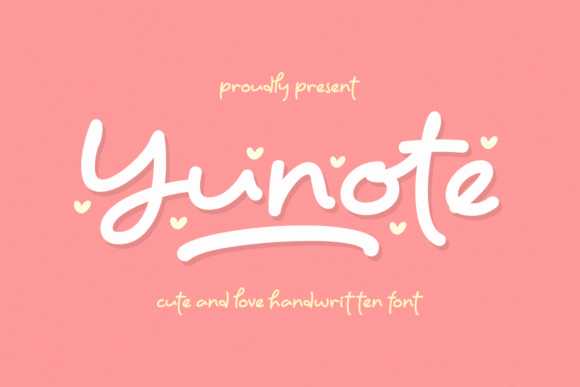
Step into the realm of elegant charm with Yunote Font, the captivating script font that will leave you enchanted. This delicately crafted handwritten font is a true masterpiece, possessing a gentle flow and enchanting curves that bring a touch of romance to any design.
Indulge in the versatility of Yunote Font, perfectly suited for a myriad of creative endeavors. Whether you're designing captivating logos, crafting heartfelt greeting cards, or creating a visually stunning fashion lookbook, Yunote Font will elevate your projects with its timeless appeal.
With Yunote Font, the possibilities are endless. Let your imagination soar as you craft visually striking branding materials that exude sophistication and charm. Design wedding invitations that capture the essence of love and elegance, or create marketing campaigns that leave a lasting impression with Yunote Font's graceful presence.
Embrace the beauty of Yunote Font, meticulously crafted with precision to ensure every letter is a work of art. Its PUA encoding grants you effortless access to a treasure trove of stunning glyphs and ligatures, inviting you to explore the boundless realm of creative expression.
Don't resist the allure of Yunote Font, a font that will transform your designs into captivating works of art. Step into a world of timeless beauty and elegance, where every word dances with grace and sophistication. Unleash your creativity and make an unforgettable impact with Yunote Font.